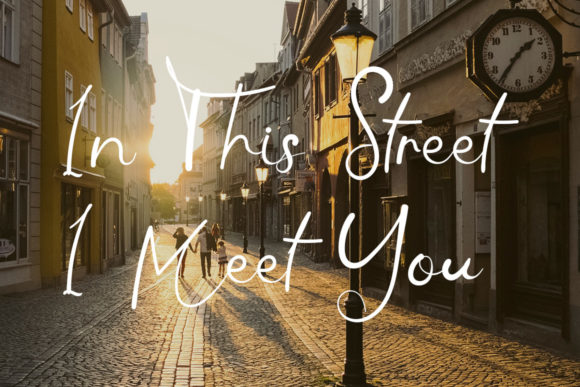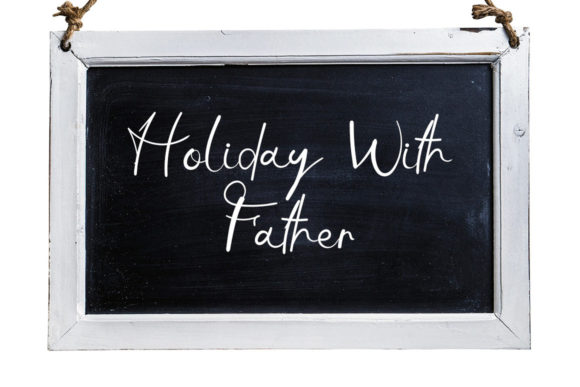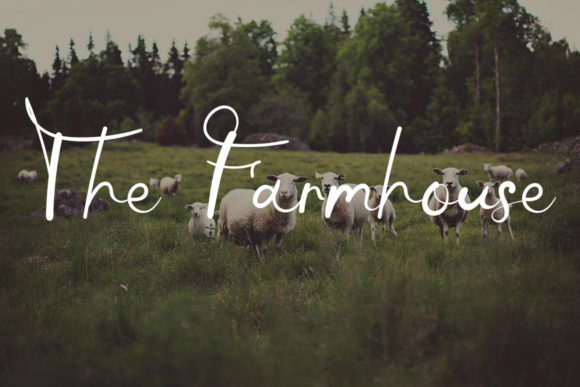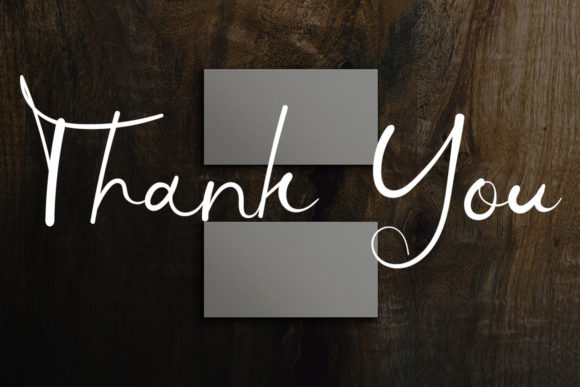
Introduction to Hey Autography Font Font
Fonts play a crucial role in design, and the Hey Autography Font font is a typeface that brings both character and versatility to any project. Whether you’re working on a branding project, a website, or a print design, the Hey Autography Font font offers a unique style that can elevate your work.
| 📌 Font Name | Hey Autography Font |
| 👤 Author | Eddygoodboy |
Hey Autography is a thin lettered and graceful script font.
Fall for its ravishing style and use it to create gorgeous wedding invitations, beautiful stationary art, eye-catching social media posts, and much more .
Key Features of Hey Autography Font Font
Why Choose Hey Autography Font Font?
The Hey Autography Font font is more than just a typeface – it’s a design tool that helps you communicate your message with style and clarity. Its unique character set and versatile design make it suitable for a wide range of applications, from elegant invitations to bold headlines.
With its carefully crafted letterforms and balanced proportions, the Hey Autography Font font ensures readability and visual appeal across all mediums.
What makes Hey Autography Font font special?
The Hey Autography Font font stands out with its unique design, exceptional readability, and versatility across various design applications.